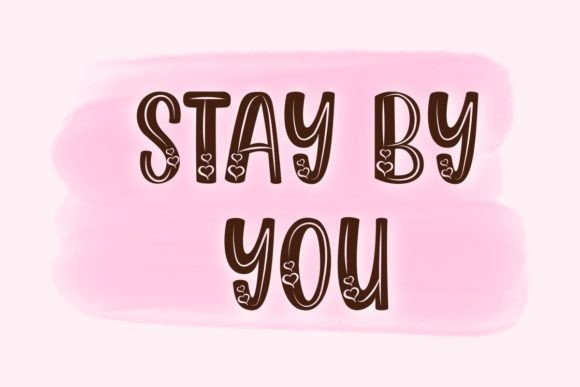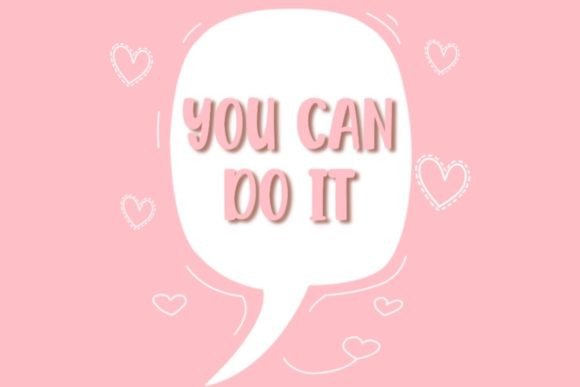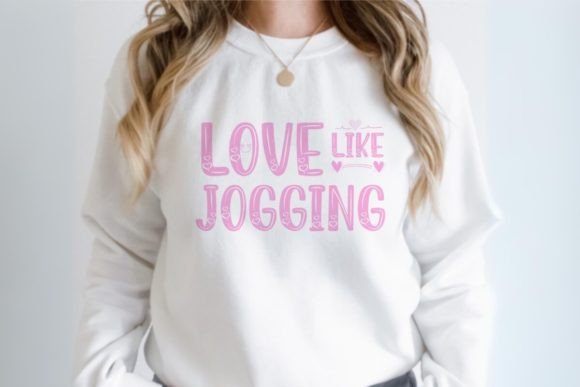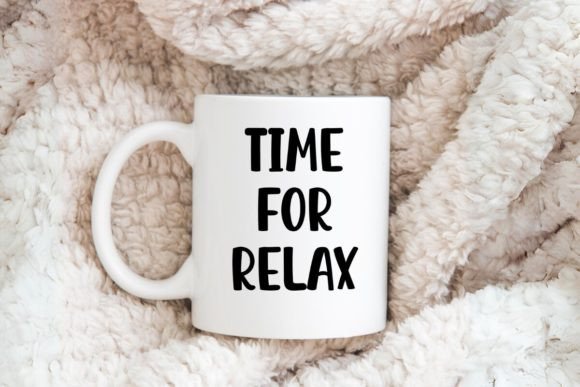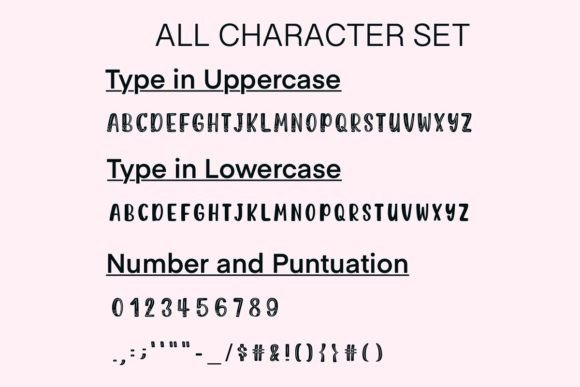
Heartbeat Lover Font: The Ultimate Decorative Font for Romantic Designs
Are you a designer or crafter looking for a font that can add a touch of romance and whimsy to your creations? Look no further than the Heartbeat Lover Font, a cute and decorative font that is perfect for creating lovely and bright designs. In this article, we’ll take a closer look at the Heartbeat Lover Font, its features, and how you can use it to take your designs to the next level.
What is Heartbeat Lover Font?
The Heartbeat Lover Font is a unique and charming font that features bold letters adorned with hearts and inlined-center alphabets. Inspired by a romantic vibe, this font is designed to add a casual charm to your designs, making them perfect for a wide range of projects. Whether you’re creating banners, social media posts, cards, content, mugs, t-shirt designs, stationery, bags, hats, pillows, stickers, or more, the Heartbeat Lover Font is the perfect choice.
Key Features of Heartbeat Lover Font
The Heartbeat Lover Font has several key features that make it a standout font for designers and crafters. Some of its notable features include:
- Bold and charming letters: The font features bold letters that are adorned with charming hearts, giving your designs a romantic and whimsical touch.
- Inlined-center alphabet: The font’s inlined-center alphabet design adds a unique and stylish touch to your text, making it perfect for creating eye-catching designs.
- Casual charm: The font’s casual charm makes it perfect for creating designs that are relaxed and friendly, yet still stylish and sophisticated.
- Versatility: The Heartbeat Lover Font is perfect for creating a wide range of designs, from banners and social media posts to cards, content, and more.
How to Use Heartbeat Lover Font
The Heartbeat Lover Font is easy to use and can be incorporated into a variety of design projects. Here are some ideas to get you started:
- Banners and signs: Use the Heartbeat Lover Font to create eye-catching banners and signs for special occasions, such as weddings, anniversaries, and Valentine’s Day.
- Social media posts: Add a touch of romance and whimsy to your social media posts with the Heartbeat Lover Font, perfect for sharing love quotes, messages, and more.
- Cards and invitations: Use the font to create beautiful and unique cards and invitations for special occasions, such as weddings, baby showers, and birthdays.
- T-shirt and mug designs: Create fun and stylish t-shirt and mug designs with the Heartbeat Lover Font, perfect for gifts or personal use.
Why Choose Heartbeat Lover Font?
So why choose the Heartbeat Lover Font over other fonts? Here are just a few reasons:
- Unique and stylish design: The Heartbeat Lover Font features a unique and stylish design that will add a touch of romance and whimsy to your designs.
- Easy to use: The font is easy to use and can be incorporated into a variety of design projects, making it perfect for designers and crafters of all levels.
- Versatility: The font is perfect for creating a wide range of designs, from banners and social media posts to cards, content, and more.
- High-quality design: The Heartbeat Lover Font is masterfully designed to bring each of your creative ideas to the highest level, ensuring that your designs look professional and polished.
In conclusion, the Heartbeat Lover Font is a cute and decorative font that is perfect for designers and crafters looking to add a touch of romance and whimsy to their designs. With its bold and charming letters, inlined-center alphabet, and casual charm, this font is perfect for creating a wide range of designs, from banners and social media posts to cards, content, and more. Whether you’re a professional designer or a crafter, the Heartbeat Lover Font is a great choice for anyone looking to create beautiful and unique designs.
Here are some tips and tricks for getting the most out of the Heartbeat Lover Font:
- Experiment with different colors: The Heartbeat Lover Font looks great in a variety of colors, so don’t be afraid to experiment and find the perfect color scheme for your design.
- Pair with other fonts: The font pairs well with other fonts, so try pairing it with a sans-serif font for a stylish and modern look.
- Use it for special occasions: The Heartbeat Lover Font is perfect for special occasions, such as weddings, anniversaries, and Valentine’s Day, so be sure to use it for these types of projects.
The Heartbeat Lover Font is a unique and stylish font that is perfect for designers and crafters looking to add a touch of romance and whimsy to their designs. With its bold and charming letters, inlined-center alphabet, and casual charm, this font is perfect for creating a wide range of designs. Whether you’re a professional designer or a crafter, the Heartbeat Lover Font is a great choice for anyone looking to create beautiful and unique designs.